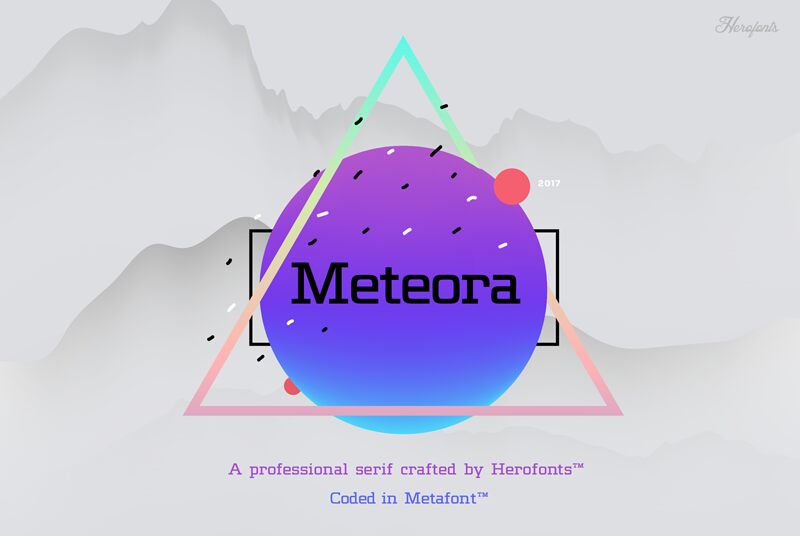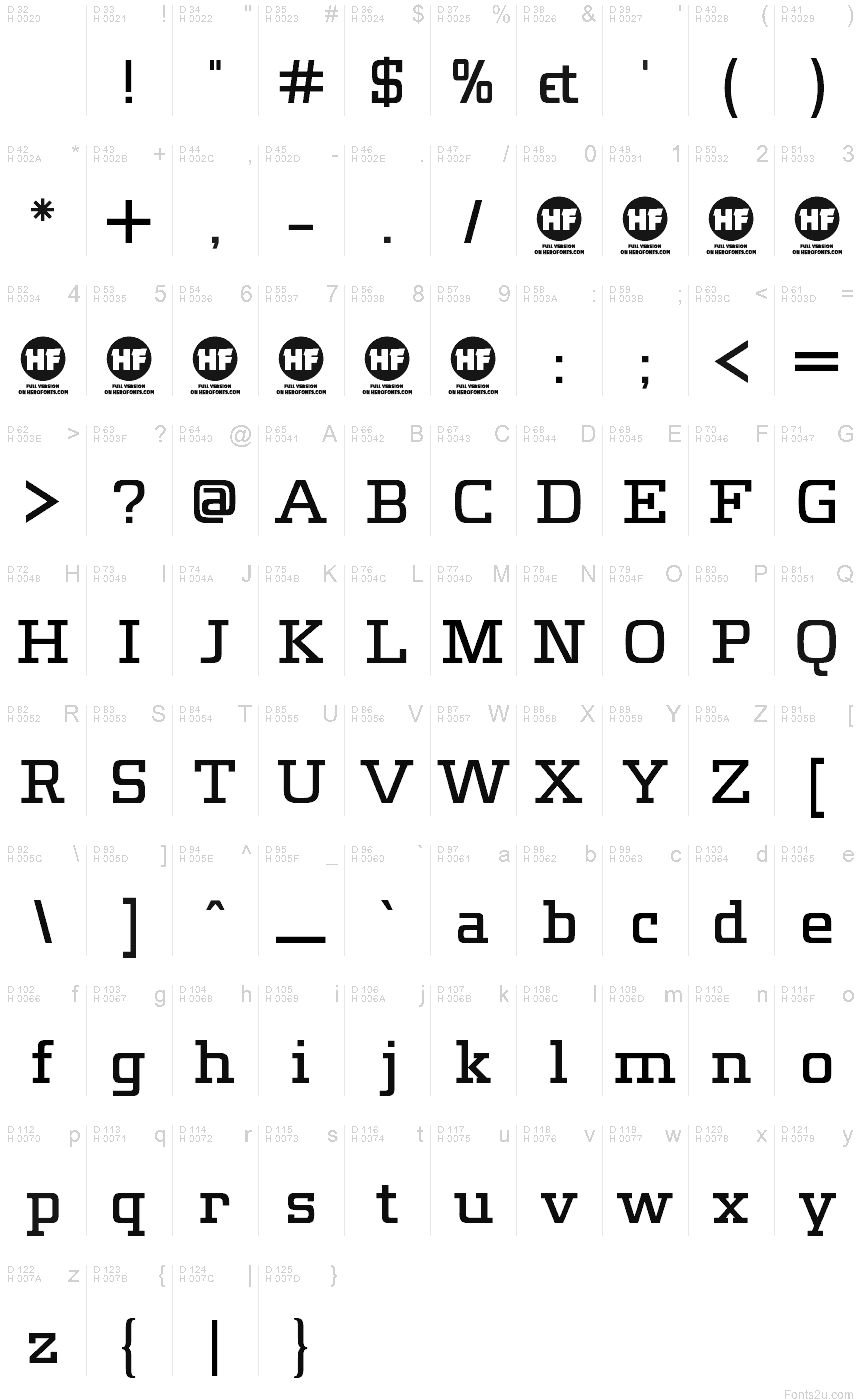
Meteora is a modernization of an alphabet made by Adrian Frutiger in 1964.
We are proud to release Meteora , the first font we coded from scratch in Metafont - a description language developed by the genius Donald Knuth.